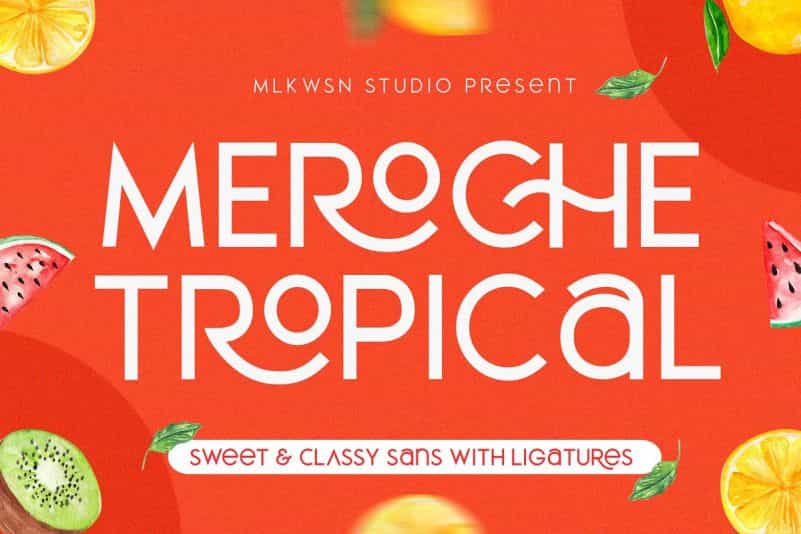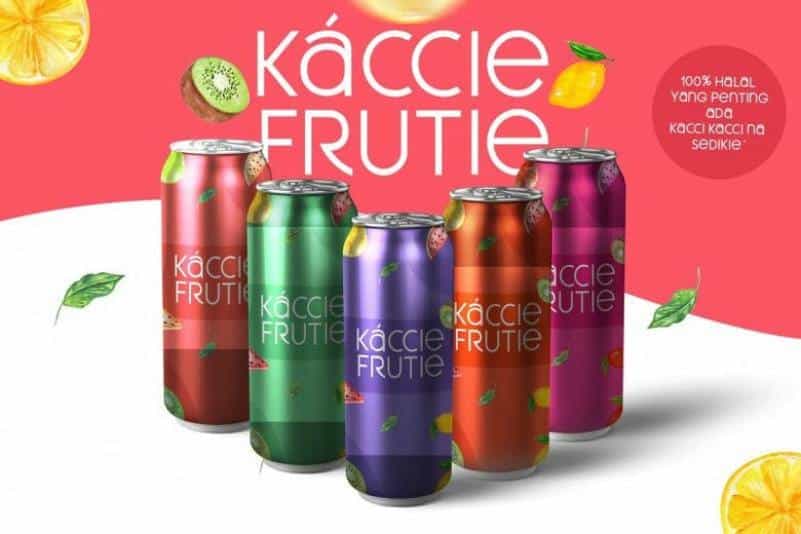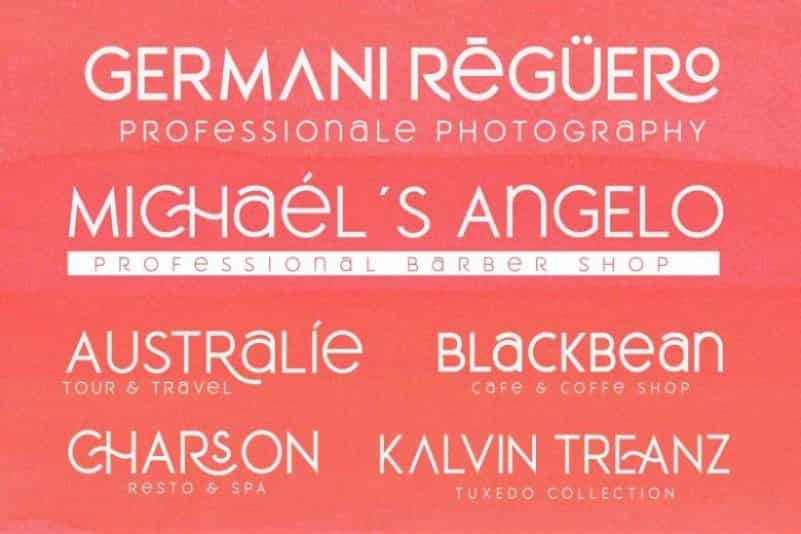
Discover Meroche Sans Font Family, part of the Sans Serif Display Retro collection—a versatile and unique font perfect for adding a personal touch to your projects. Download it for free and enjoy crafting designs with style, from invitations to social media posts. This font is available exclusively for personal use, giving you the freedom to create without limits. Unlock your creativity with Meroche Sans Font Family today!
Welcome to Meroche Font. A new sweet & classy sans font. It is MLKWSN that created and shared it. Meroche Sans Family consists of 4 weight : The thin, regular, medium and bold equipped with 20+ ligatures and alternative letters that look sweet and classy are very good for your work such as logos, branding, packaging, posters, invitations, instastory and your advertising needs.